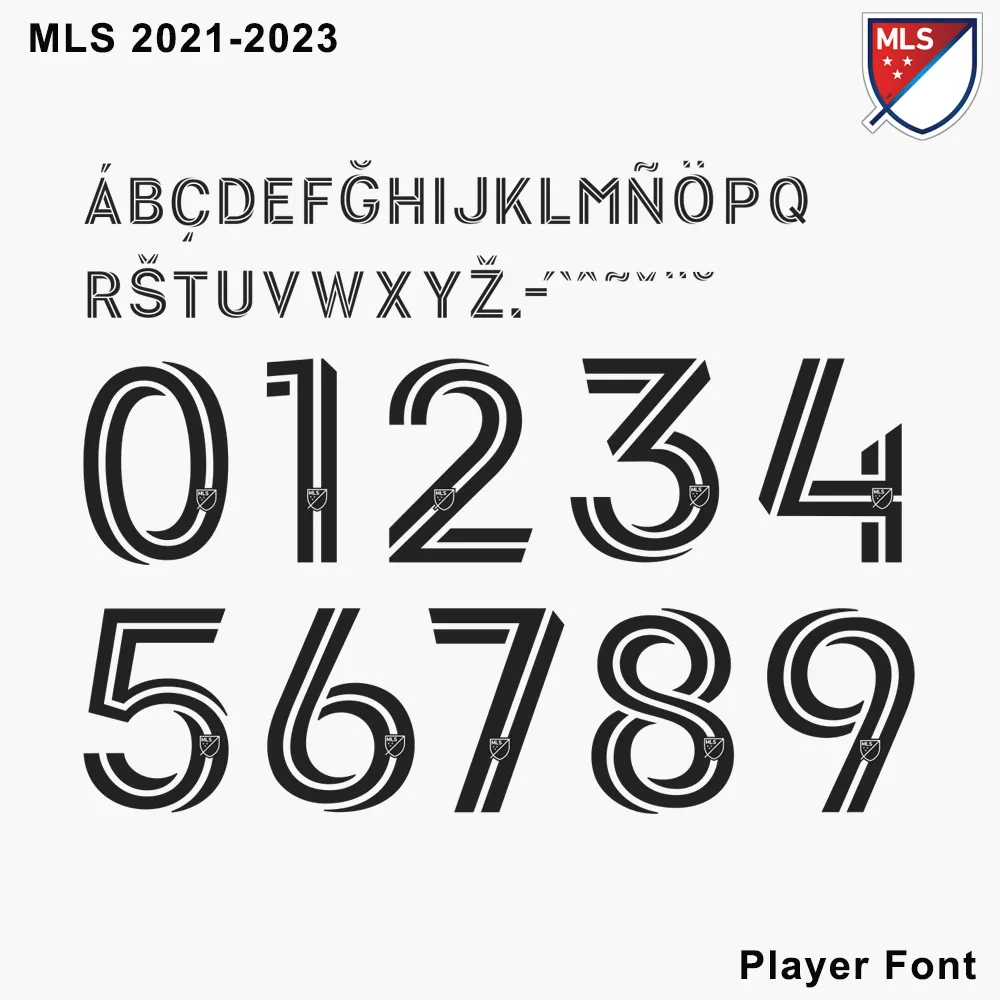
MLS 2022-2023 Kit Font
Own the official look of North American soccer with the MLS 2022-2023 Kit Font. Known as the “MLS Forward” typeface, this bold, geometric design is used by every club from LAFC to Inter Miami. This kit provides installable TTF/OTF fonts and professional AI, CDR, and PDF vector files for high-end production.
The “MLS Forward” font was designed to be a symbol of the league’s progression. Characterized by its sharp angles and modern block structure, it ensures maximum legibility on the pitch while looking incredibly sleek on fan merchandise. Whether you’re customizing a or creating digital content for the next match day, this font is the industry standard.
• Full Character Set: Includes the complete uppercase alphabet (A-Z) and the specialized 0-9 number set featuring the signature MLS slash-cut design.